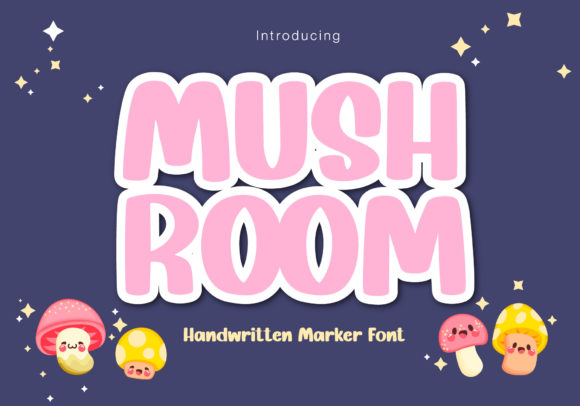
Looking for the best font for Easter designs? Look no further than Mushroom Font from BB Type Studios. This bubbly, chunky lettered and friendly display font is the perfect choice for any children's activity or elementary school design.
With its playful and authentic feel, Mushroom Font embodies the spirit of Easter and will bring joy to any project. The bold and attention-grabbing letters make it a standout choice for any marketing material or promotional campaign.
But don't just take our word for it. Mushroom Font has already won over countless customers with its charming and delightful style. Whether you're looking to create a fun Easter-themed poster or a whimsical logo for your business, this font is sure to impress.